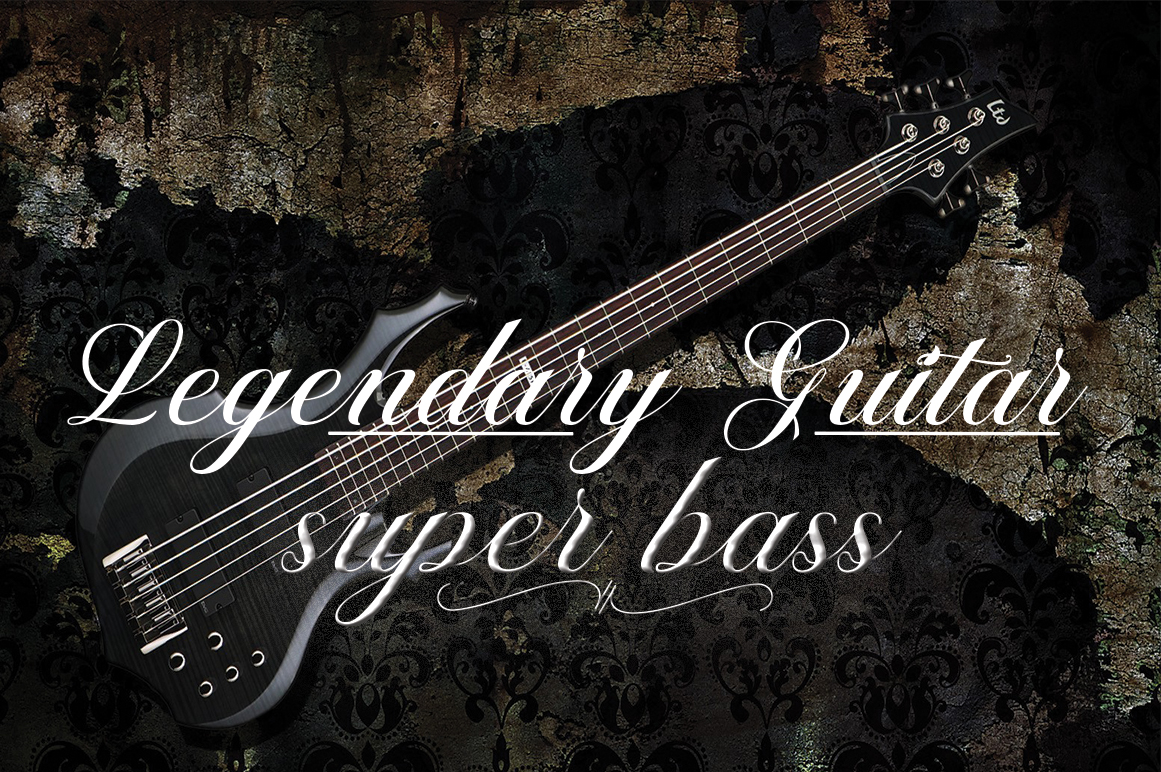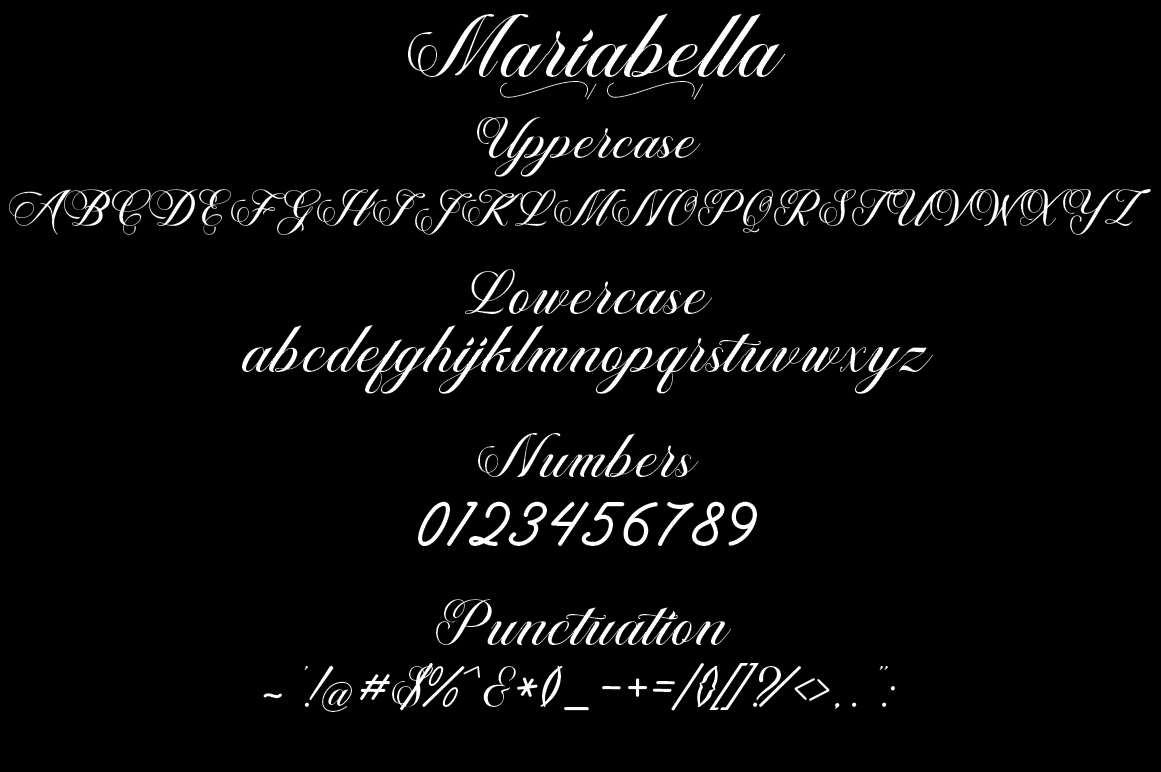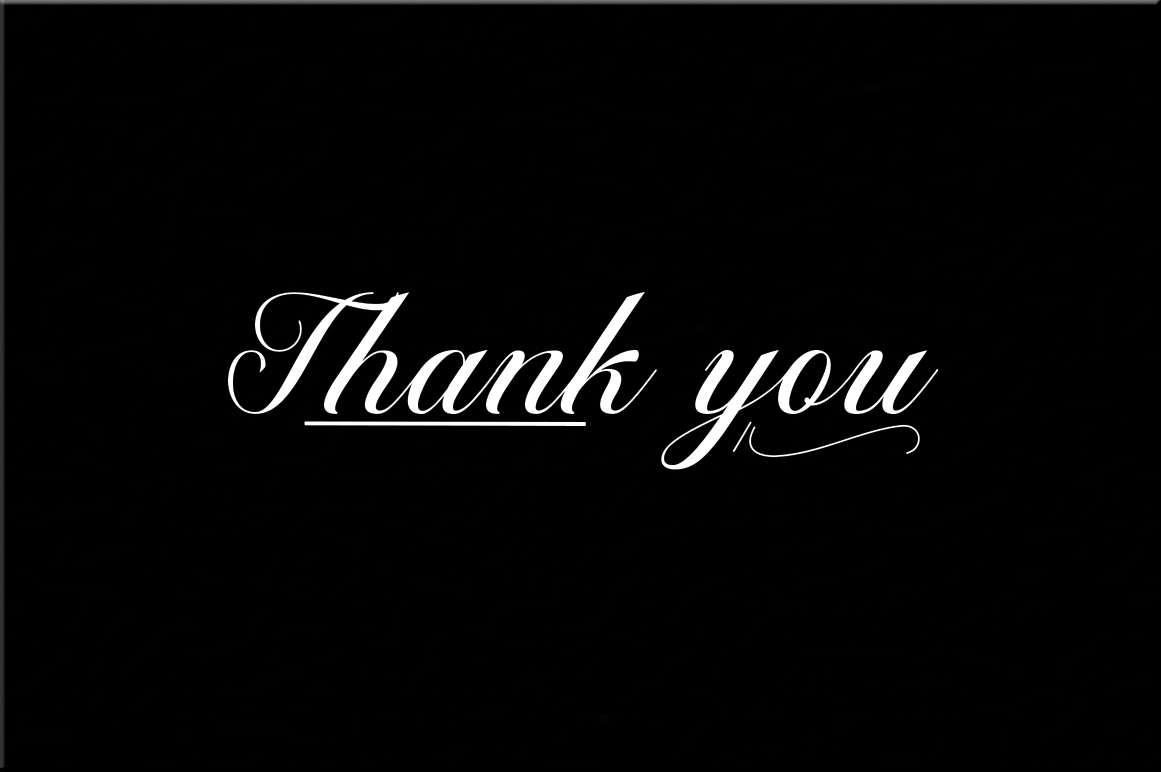
Introduction to Mariabella Font
Have you ever stared at a blank canvas, eager to bring your creative vision to life, only to be met with a sea of uninspiring font options? We’ve all been there – and that’s exactly why discovering the Mariabella Font can be a game-changer for designers.
This stunning script font is more than just a pretty face; it’s a versatile design resource that can elevate your creative project from ordinary to extraordinary. With its elegant, sophisticated lines and abundance of alternates, the Mariabella Font offers endless customization possibilities – perfect for giving your designs a unique and eye-catching appeal.
Key Features of Mariabella Font
- Designed to be highly legible and visually appealing
- Perfect for use in digital and print media, including logos, graphics, and body text
Honest Review: Mariabella Font
I’ve been working with fonts for years, and I must say that Mariabella Font has caught my attention. I was thrilled to find a high-quality design resource that’s perfect for any creative project.
- Highly legible: The font is clear and easy to read, making it ideal for body text and headings.
- Beautiful script: The script part of the font is elegant and sophisticated, perfect for adding a touch of elegance to any design.
One of the things I appreciate about Mariabella Font is that it has a transparent background, which makes it easy to use on any background image or color.
- Not ideal for bold or dramatic text: While the font is beautiful, it’s not the best choice for text that needs to be bold or dramatic.
- May not be suitable for very small sizes: At very small sizes, the font can become hard to read.
Overall, I’m really impressed with Mariabella Font. It’s a high-quality design resource that’s perfect for any creative project. With its beautiful script, high legibility, and transparent background, it’s a must-have for any designer.
Common Use Cases for Mariabella Font
The Mariabella Font is a versatile design resource that can be used in a variety of creative projects, including business cards, brochures, and website headers. Its high quality and transparent background make it ideal for use in both digital and print designs.